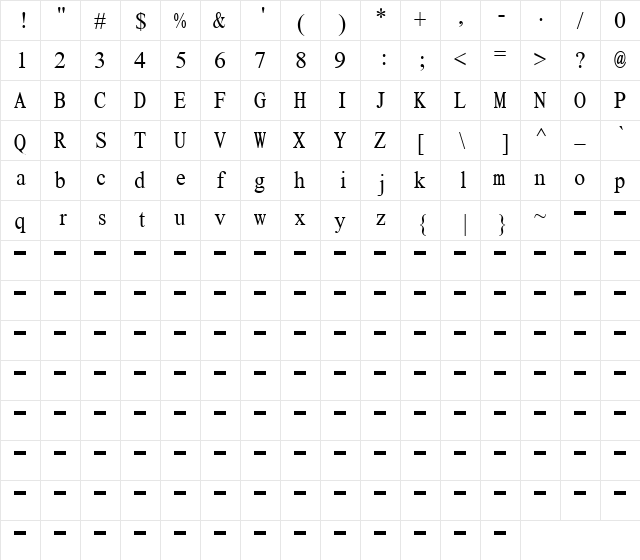
Chn Times Roman Normal Regular
Chn Times Roman Normal is a composed and adaptable typeface that performs quietly and consistently across a wide range of design contexts.